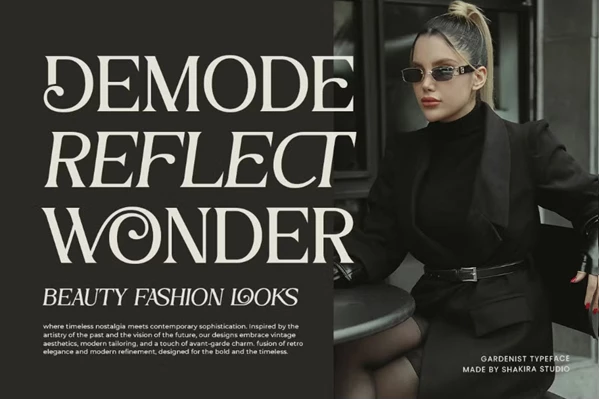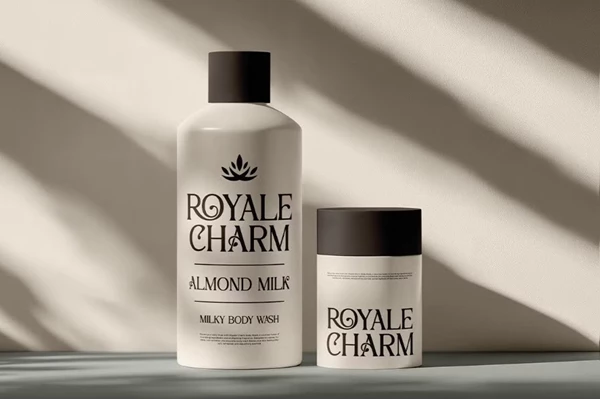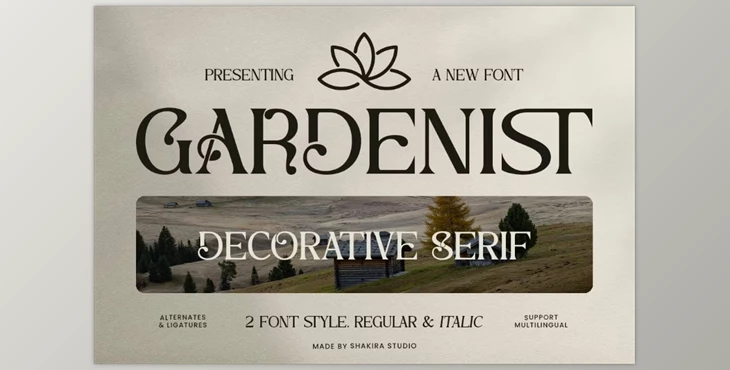
Gardenist - Decorative Serif Font:
Gardenist is a unique combination of ornamental decorative serif and modern practical creativity. This font can embellish any assignment from business branding to multicultural logos, sophisticated packaging, or even posters. With elegance and flexibility, Gardenist comes not only in regular and italic styles but also features swanky alternates and stylish ligatures. These unique features aid every designer to distinguish their work in branding packages and posters, making every creation memorable and one of a kind.
Some great features of Gardenist - Decorative Serif Font:
- Ornamental Serif Design: The font is highly appropriate for branding, packaging, and other editorial works with more sophisticated elements of elegance.
- Regular & Italic Versions: These Explorers found fresh ways of approaching the same phrase or idea since it provided alternative ways to express the same design.
- Stylish Alternates & Ligatures: Skillful design customizes typography and alternates to include personalized decorative embellishments supporting unique design styles.
- Versatile Application: Every type of media be it print, digitally is stylishly adaptable to further support an eye catching design aesthetic.
- Multilingual Support: Side-by-side language support along with multilingual being catered to make it great to be used around the globe and be part of different regions' projects.
Whether it be luxury themed branding, stylishly sophisticated packaging or designing decoratively elegant invites, Gardenist serves as a guiding light in transforming surdy text into glamourous use of words. Stand out and make a mark like never before.